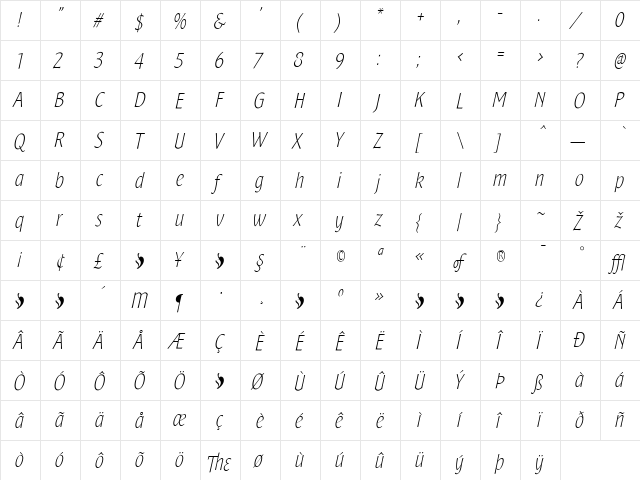
SamSans Regular
| Foundry | John Downer, designer. Produced by The Font Bureau, Inc |
Design Context for SamSans Typeface
SamSans is a composed and adaptable typeface that performs quietly and consistently across a wide range of design contexts.